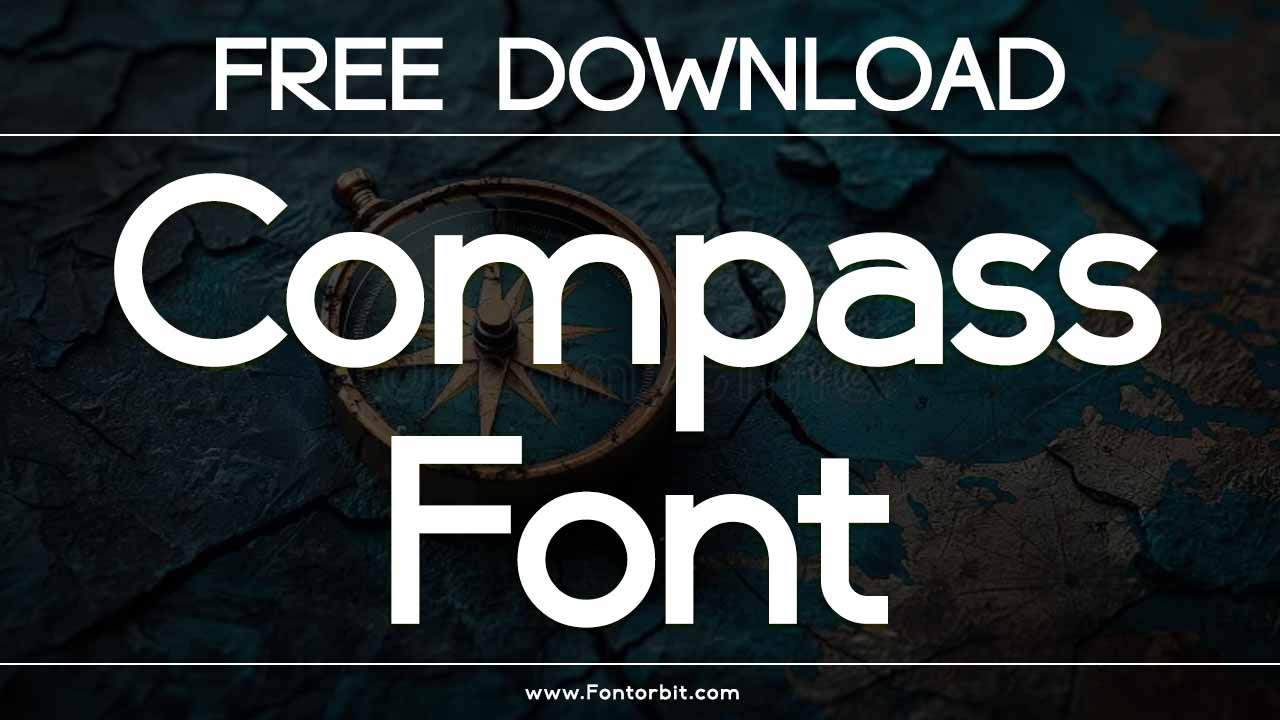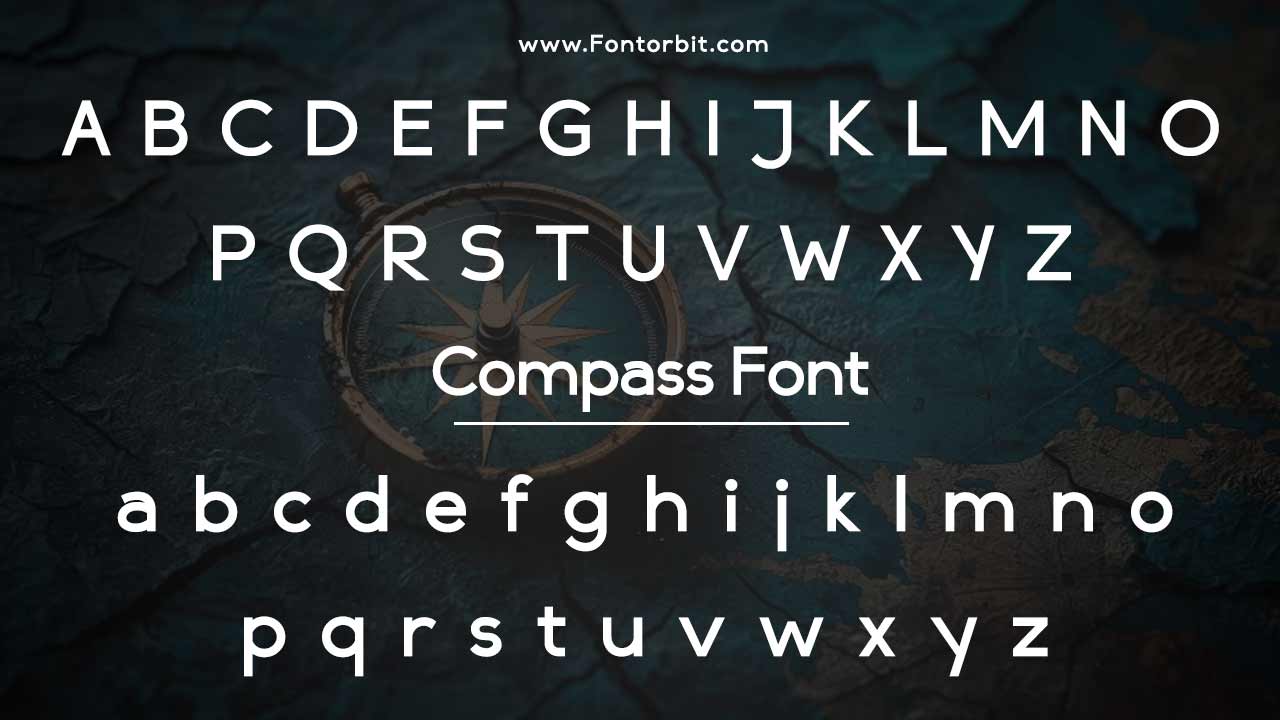
Designed by Kelvin Ma, Compass is a modern, clean, and bold sans-serif font perfect for making a statement in your next design project. Its simplicity and refined sense of structure make it a top choice for designers looking to create impactful and professional-looking materials.
Compass Font Family
The Compass font family includes several variants, making it adaptable to various design needs. Here’s a quick overview of the available styles:
- Compass Medium: Ideal for body text and general design use.
- Compass Bold: Perfect for headlines and making bold statements.
- Compass LT Regular: A lighter version offering a softer approach to design.
Each variant is meticulously designed to offer flexibility while maintaining the clean, modern look that Compass is known for.
Why Choose Compass Font?
Compass font is the choice of many designers. Here’s why:
- Legibility: The font is highly readable in both large and small sizes, making it great for both display and body text.
- Versatility: The font works well in various design projects, including websites, logos, print materials, and more.
- Character Set: Compass supports multiple languages, including Latin, Chinese, and Cyrillic, which ensures global usability.
- Modern Aesthetic: Compass carries a clean, modern font style that fits well with contemporary designs, ensuring your projects stay fresh and relevant.
How Compass Fits Into Design Projects
Whether you are working on a logo, building a website, or designing print materials, Compass can make your project stand out. Below are some ways you can use this font family:
Use Cases for Compass Font:
- Website design: Its clean lines make Compass ideal for website text, ensuring your content is legible and aesthetically pleasing.
- Logo design: Compass’ boldness makes it perfect for logos that need to command attention while maintaining clarity.
- Print materials: Whether it’s business cards, brochures, or posters, Compass adds a professional touch to your print designs.
- Headings and Titles: Use Compass Bold for impactful titles or headlines that immediately attract attention.
- Body text: With Compass Medium or Compass LT Regular, you can ensure your body text is easily read, even in smaller sizes.
Tools For Customizing Compass Font
One of the reasons Compass works well for so many projects is the flexibility it offers. With support for Unicode characters, it works well for international projects and is easily adaptable in Chinese, Cyrillic, and Latin languages.
Here’s a quick guide to customizing the font for different types of projects:
| Font Style | Use Case | Best For |
| Compass Medium | Body text, paragraph copy | Articles, blogs, websites |
| Compass Bold | Headlines, titles, subheadings | Posters, brochures, logos |
| Compass LT Regular | Light text for softer, minimalist designs | Invitations, presentations |
This chart gives you a clear view of which font variant best suits various parts of your design.
Complementing Compass With Other Fonts
While Compass shines independently, you can pair it with other typewriter or handwritten fonts for a creative contrast. For example:
- Compass + Serif Fonts: Pair with a serif font like Merriweather to balance modern and classic design elements.
- Compass + Decorative Fonts: Combine it with more decorative fonts for added personality and flair.
This pairing ensures a dynamic contrast that can make your design more interesting and visually appealing.
The Power Of Compass In Design
Compass’s balance of clarity and boldness sets it apart from other fonts. It’s a sans-serif typeface that delivers without compromising legibility. The simple yet powerful design makes it perfect for displaying text, titles, and logos. Its adaptability also makes it an excellent choice for digital and print projects.
Key Features of Compass Font:
- Wide Language Support: Works with Latin, Chinese, and Cyrillic characters.
- Boldness and Clarity: Great for headlines, logos, and large text.
- Clean Design: Offers excellent legibility in both print and digital formats.
2.What Languages Does Compass Support?
Compass supports Latin, Chinese, and Cyrillic, making it versatile for international design projects.
4.Can Compass Be Used For Body Text In Print Projects?
Compass Medium and Compass LT Regular are excellent choices for body text in print and digital projects.
5.Is Compass Suitable For Logo Design?
Absolutely! The bold and clean lines of Compass Bold make it perfect for creating memorable logos.
6.How Can I Pair Compass With Other Fonts?
Compass pairs well with serif fonts for a professional look or with decorative fonts for a more playful, creative style.